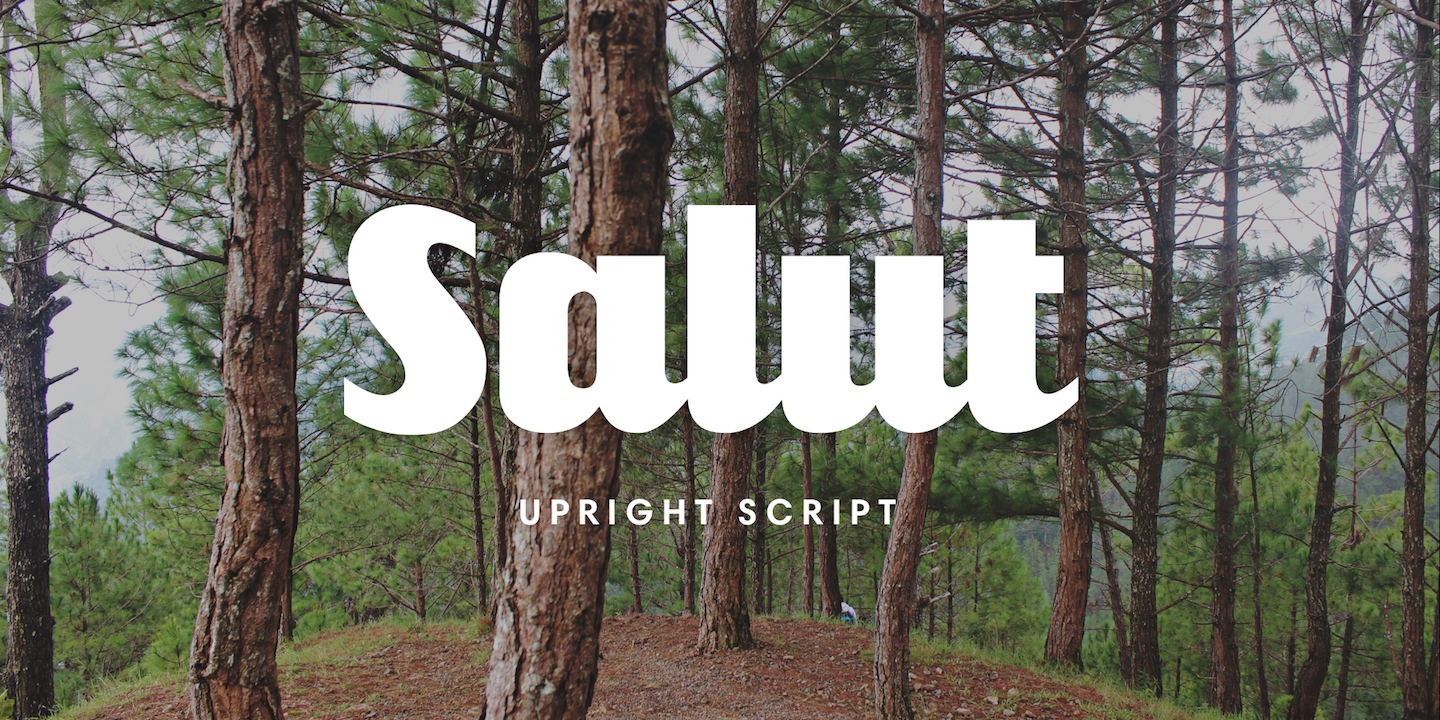
Salut Font is perfect for friendly branding, greeting card designs, casual restaurants, boutique cafes, handmade product packaging, and welcoming marketing materials. Its approachable character makes it ideal for hospitality businesses, children's brands, community organizations, artisan markets, and any application requiring warm, inviting typography that conveys friendliness, accessibility, and genuine human connection.
Salut Font is exciting because it radiates authentic warmth and genuine hospitality through carefully crafted letterforms that feel both personal and professional. Its friendly proportions and welcoming aesthetic create an immediate sense of comfort and approachability, making it perfect for brands seeking to establish meaningful connections with their audiences. The font's cheerful personality helps break down barriers and creates inviting communication experiences.
Salut Font family includes welcoming weight variations typically featuring Light, Regular, Medium, and Bold options with cheerful italic styles. The family often incorporates playful alternates, friendly ligatures, and extended character sets designed for international hospitality applications, providing designers with comprehensive tools for creating warm, globally accessible typographic communications.
When selecting friendly typography solutions, Salut Font Free Download represents an exceptional choice for welcoming brand experiences. This charming typeface brings instant warmth to any communication, making it invaluable for hospitality businesses, community organizations, and brands prioritizing human connection. Whether you're developing café branding, creating welcoming signage, or designing friendly marketing materials, Salut Font provides the genuine warmth and approachable aesthetics essential for building meaningful relationships with audiences in today's connection-seeking marketplace.